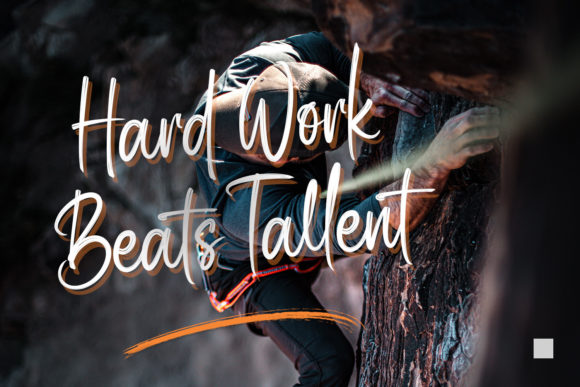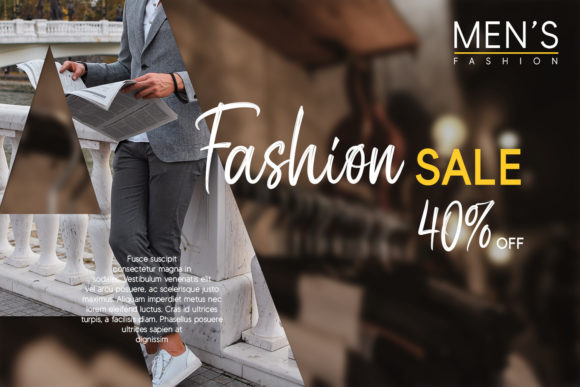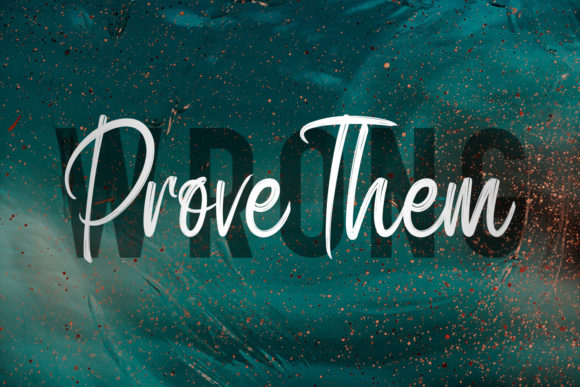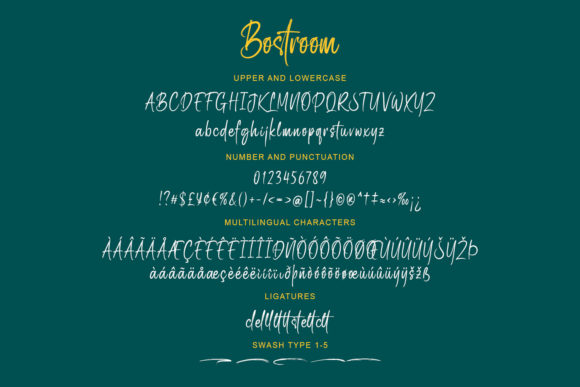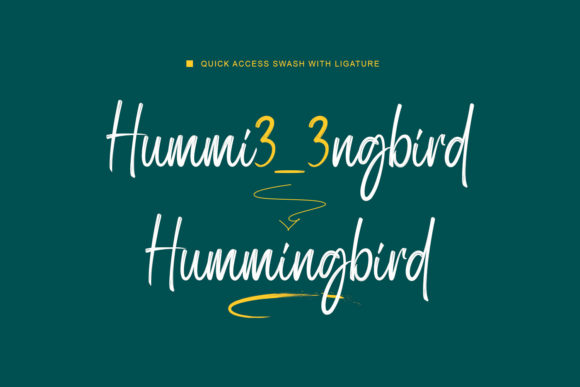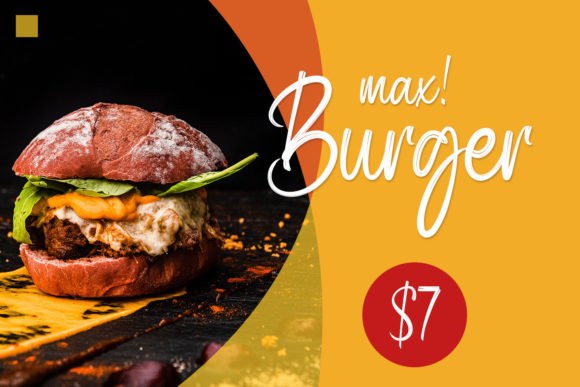
Introduction to Bostroom Font
Bostroom is a beautiful brushed script font.
It looks stunning on wedding invitations, thank you cards, quotes, greeting cards, logos, business cards and every other design which needs a handwritten touch It features a varying baseline, smooth lines, gorgeous glyphs and stunning alternates.